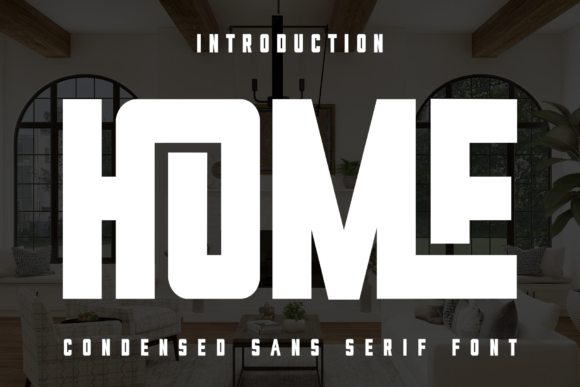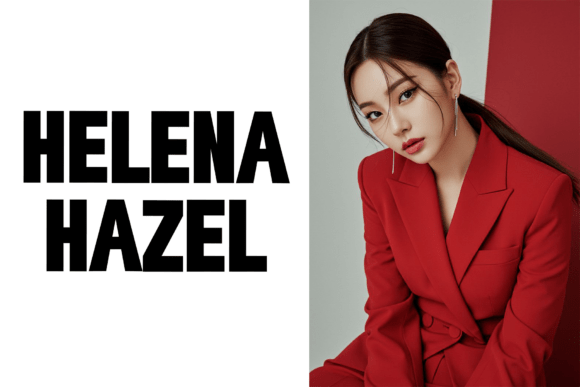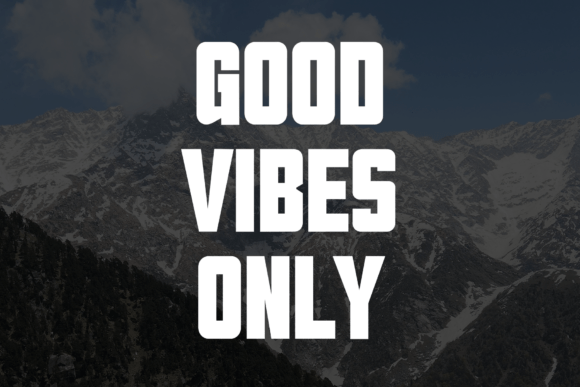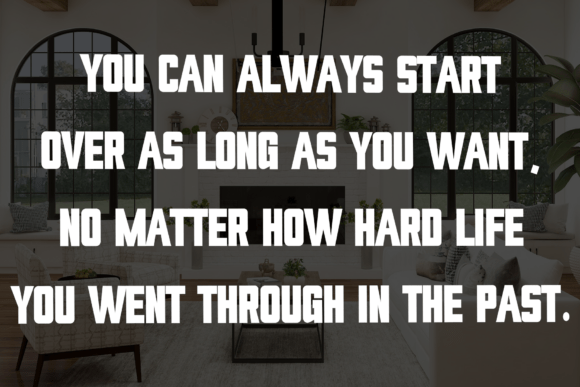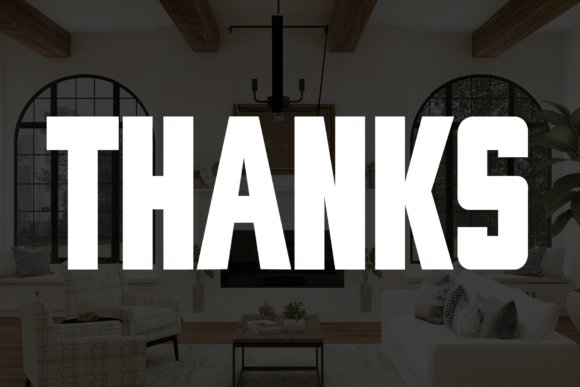
Where Design Meets Home
Have you ever stumbled upon a font that instantly transports you to a world of sleek modernity? For designers, that moment of epiphany is a rare yet thrilling experience. It happened to me when I discovered Home Font – a bold, condensed sans serif font that embodies the essence of contemporary design.
Home Font is more than just a typeface; it’s a statement-maker that elevates your design projects to the next level. Its geometric forms and compact style make it a perfect fit for interior design, bold branding, and magazine layouts. Whether you’re creating posters, architecture-inspired graphics, or anything in between, Home Font is an invaluable tool in your design arsenal.
What sets Home Font apart is its ability to convey clarity and modernity with minimal effort. It’s a commanding font that demands attention without overpowering the content. As a designer, you’ll appreciate the versatility and sophistication that Home Font brings to your work.
Home Font Key Features
- Font Family: Home Font is a sans-serif font family designed for modern and clean typography. It includes 6 styles: Thin, Light, Regular, Medium, Bold, and Black.
- Character Set: Home Font supports a wide range of languages, including Latin, Cyrillic, and Greek alphabets.
- Unique Characteristics: Home Font features a clean and minimalist design, with subtle rounded corners and a balanced x-height, making it ideal for modern and professional designs.
Designer Review: Home Font
Overall, I think Home Font is a solid choice for a clean and modern look. ✨ One thing I appreciate is its readability, which is perfect for body text. It’s clear, concise, and easy on the eyes. The font also comes in a range of weights, making it versatile for different design applications.
- ✨ High-quality font design with a clear and readable style
- ✨ Suitable for a wide range of design applications, from print to digital
- ✨ Includes a range of weights and styles to enhance versatility
However, there are a few limitations to consider. ⚠️ The font may not be the best choice for display headings, as it can appear a bit too plain. Additionally, some users may find it a bit too minimalist, lacking the flair and personality of other fonts.
- ⚠️ May not be the best choice for display headings
- ⚠️ Some users may find it too minimalist
Overall, I think Home Font is a great choice for designers who value simplicity and readability. While it may not be the most exciting font, it’s a solid foundation for a wide range of design projects.
Tips for Getting the Most Out of Home Font
Use Home Font for body text to create a clean and professional look.
Pair Home Font with a bold or italic font for headings to create visual hierarchy.
Home Font is commonly used for:
Body text in brochures, flyers, and posters.
Headings in resumes, cover letters, and business proposals.
Text overlays in social media graphics and video titles.
Open Sans is a clean and modern sans-serif font. It’s ideal for digital products, websites, and mobile apps. Open Sans is highly legible, making it perfect for body text and titles. Compared to Home Font, Open Sans is more versatile and has a wider range of styles.
Lato is a modern sans-serif font with a friendly feel. It’s great for headings and titles, and works well for both digital and print designs. Lato is more condensed than Home Font, making it perfect for small screens and spaces.